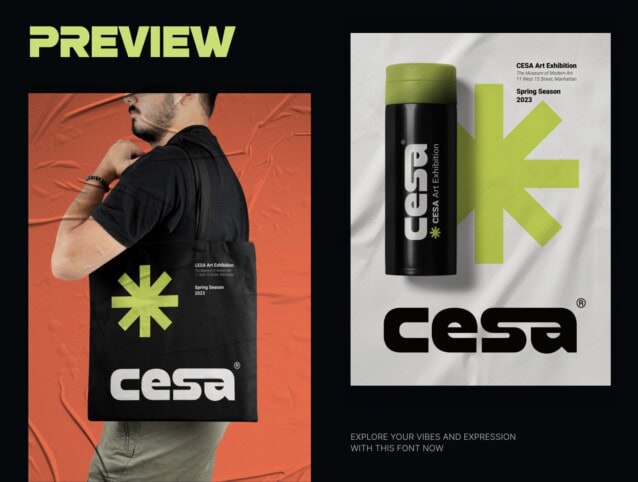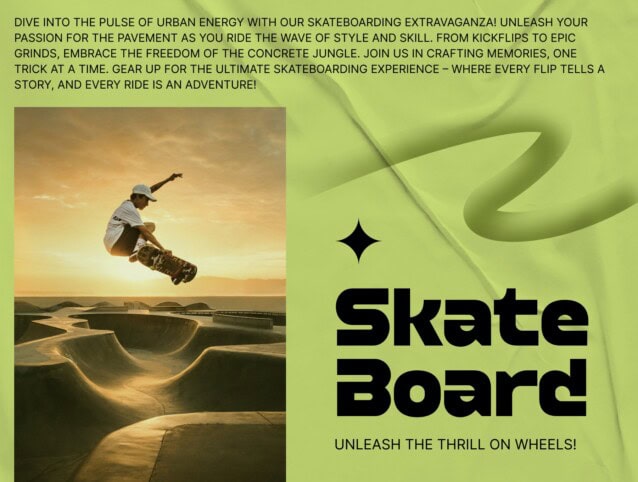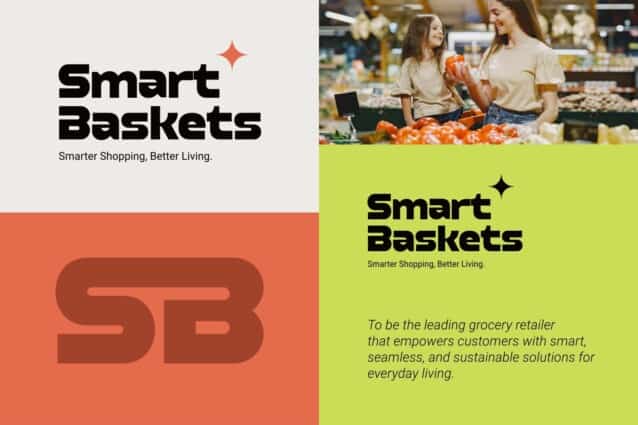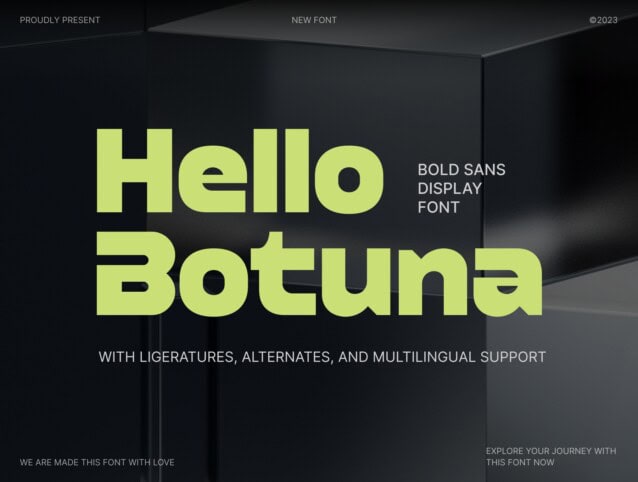
Hello Botuna Font
Hello Botuna Font is a modern and stylish display typeface that is meticulously crafted to add a touch of sophistication and elegance to your graphic designs. Hello Botuna is the perfect choice for projects that demand a strong visual impact, whether it’s in headlines, logos, or promotional materials.
The boldness of this sans-serif typeface is balanced by a subtle elegance, making it versatile and suitable for a wide range of design applications. Its distinctive characters are both distinctive and legible, ensuring that your message is communicated with clarity and style. Elevate your design projects with the bold personality and contemporary flair of Hello Botuna – a font that speaks volumes with every letter.